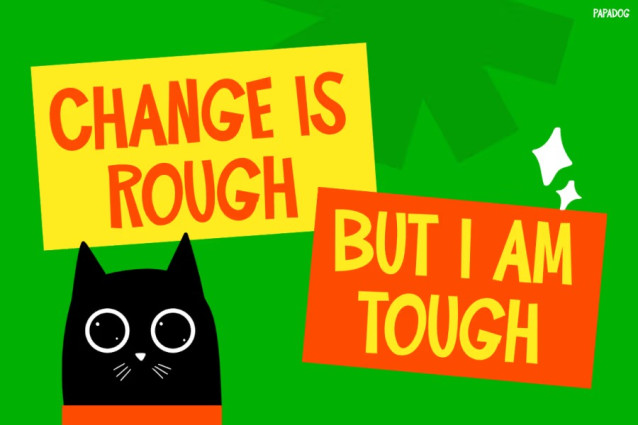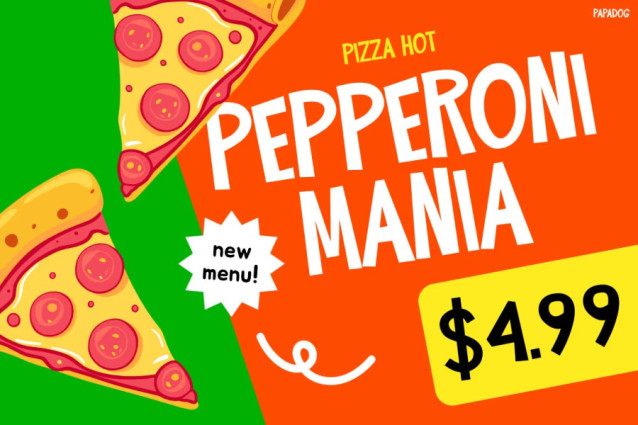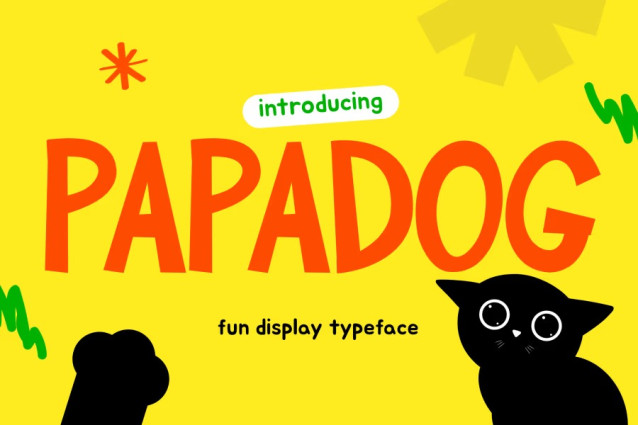
Papadog Font
Papadog Font brings cheerful energy to every design, and it does so through bold, rounded shapes. Moreover, its hand-drawn style gives each letter a warm personality that feels fun and expressive. As a result, every text looks lively and approachable. The soft curves also add a friendly mood that instantly attracts attention. Even then, the font stays readable, so it works well for many layouts. Therefore, this unique balance of joy and clarity makes the font stand out among playful typefaces. Additionally, the bright structure of each character creates a creative rhythm that enhances visual storytelling. Because of this, your designs feel more dynamic and memorable.
Who Is Kids Font Papadog Perfect For?
Kids Font Papadog is ideal for designers who want happy, colorful, and expressive visuals. Additionally, it works beautifully for children’s brands, toy packaging, school projects, and playful event graphics. Because of its lively personality, the font fits Instagram posts, social ads, and digital banners that need extra charm. It also suits dessert shops, cute cafés, food stalls, and casual F&B brands that want an inviting identity. Furthermore, creators can use it for product labels, menu boards, snack packaging, or fun merchandise. Since the font has a friendly vibe, it helps small businesses appear more warm and relatable. Moreover, illustrators and content creators will enjoy using the font for quotes, posters, digital stickers, and creative marketplace items. Consequently, this typeface supports anyone who wants designs that feel bold, bright, and full of joy.
Closing – Bring More Joy to Every Design
Kids Font Papadog adds instant positivity to your work, and it does this with effortless charm. Besides that, its joyful flow brings life to simple words, making your messages shine. Ultimately, this font helps your designs appear more expressive, modern, and visually delightful. So, add it to your collection today and build creations that spread happiness everywhere.